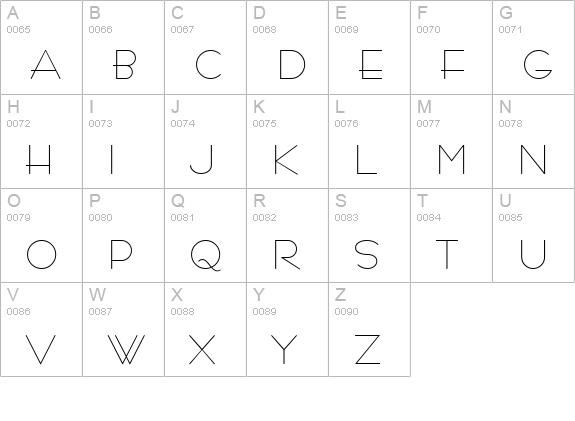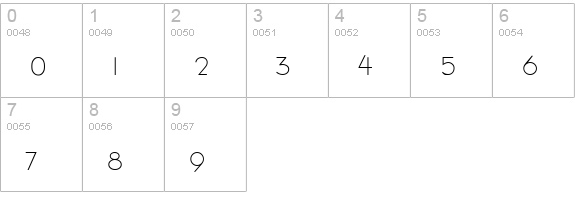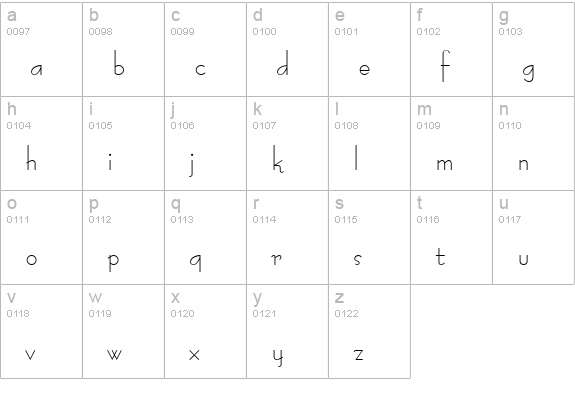
Tourina SSi Font Details
Tourina SSi is a visually captivating and versatile font that seamlessly combines modernity with elegance. With its sleek lines and graceful curves, this typeface exudes a sense of sophistication that is sure to enhance any design project. This font boasts a wide range of weights and styles, allowing you to effortlessly create stunning typography that stands out from the crowd. Whether you're designing a logo, crafting a brochure, or creating eye-catching social media graphics, Tourina SSi has the versatility to meet your every need. One of the best features of Tourina SSi is that it is free. Yes, you read that right! This incredible font is freely available to download at FontsMarket.com, making it accessible to designers of all levels. Say goodbye to expensive font licenses and hello to creativity without constraints. With Tourina SSi, you can unleash your creativity and bring your design visions to life. Its clean and legible characters ensure readability across various platforms and mediums, while its unique personality adds a touch of charm and personality to your projects. Whether you're aiming for a modern and sleek look or a more sophisticated and timeless aesthetic, Tourina SSi has got you covered. Its versatility and artistic flair make it perfect for a wide range of design applications, from branding and advertising to web design and print media. So why wait? Take advantage of this incredible opportunity to elevate your designs with Tourina SSi. Download it for free today at FontsMarket.com and let your creativity soar.